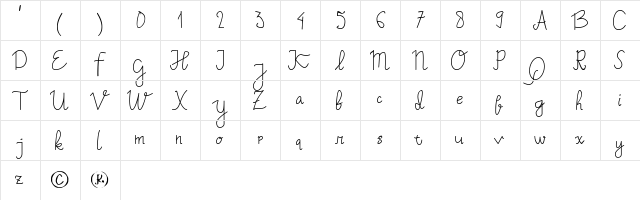
Lichalizta Regular
| Designer | Aziz abdul 2019 |
Design Context for Lichalizta Typeface
Lichalizta is a composed and adaptable typeface that performs quietly and consistently across a wide range of design contexts.